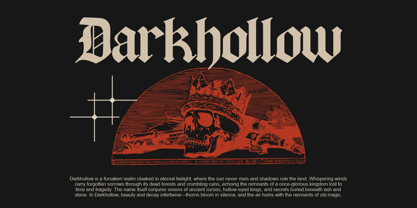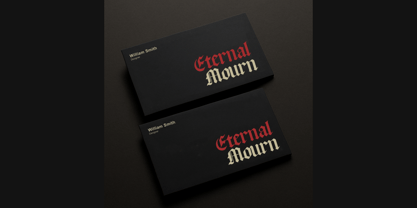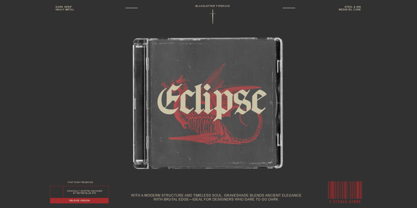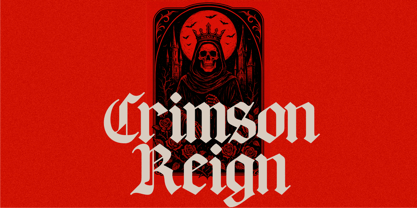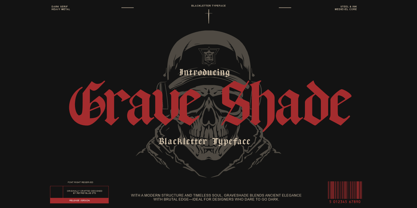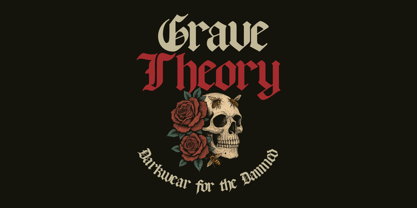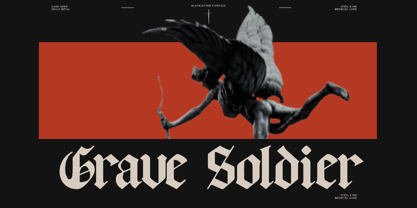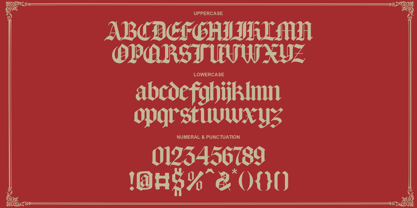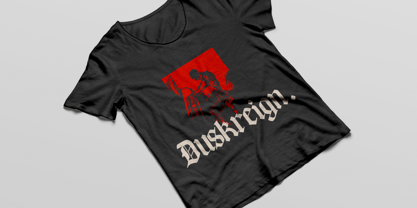
Grave Shade
Grave Shade is a bold blackletter typeface that combines medieval elegance with modern gothic power. Inspired by heavy metal aesthetics and dark serif traditions, this font delivers a brutal edge that’s perfect for horror posters, metal band logos, tattoo designs, gothic branding, and vintage occult merchandise.
With razor-sharp serifs and a commanding presence, Grave Shade is ideal for designers who crave intensity and a timeless gothic feel. Each character is meticulously crafted to evoke the ancient art of calligraphy while staying clean and contemporary.
Features:
• Full uppercase & lowercase blackletter alphabet
• Numerals & basic punctuation
• Strong medieval and horror vibe
• Perfect for apparel, music covers, book titles, and branding
Bring a haunting presence to your next project with Grave Shade—the blackletter typeface for those who dare to go dark.